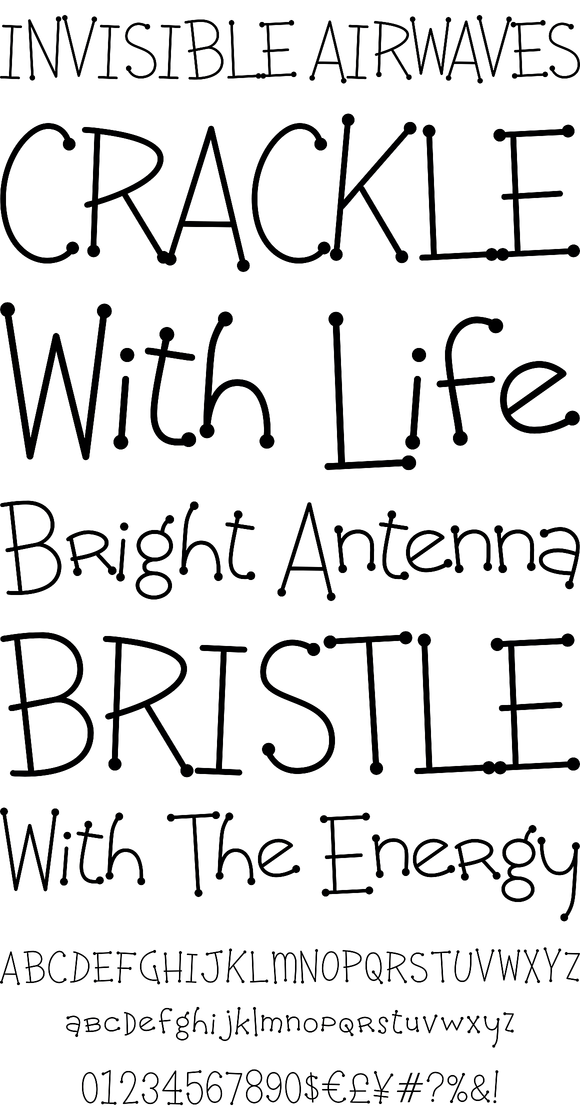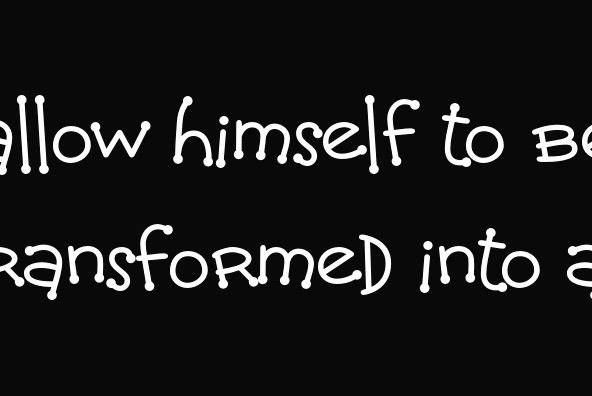
Crazy Girlz
Foundry: Breaking The Norm
Crazy Girlz Blond is a playful display typeface perfect for the teeny bopper set for scrapping, journaling, or sorority house party signs! The Blond weight features bubbly serifs!